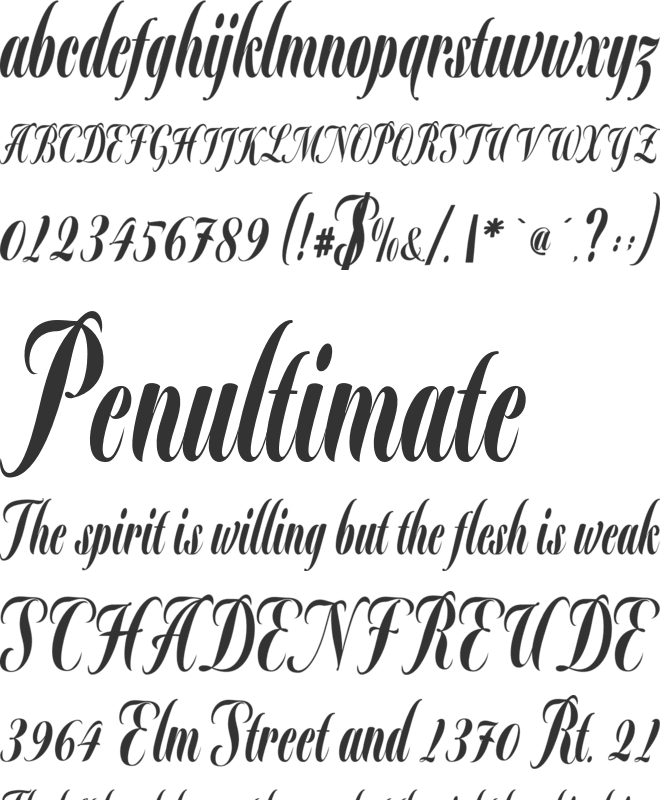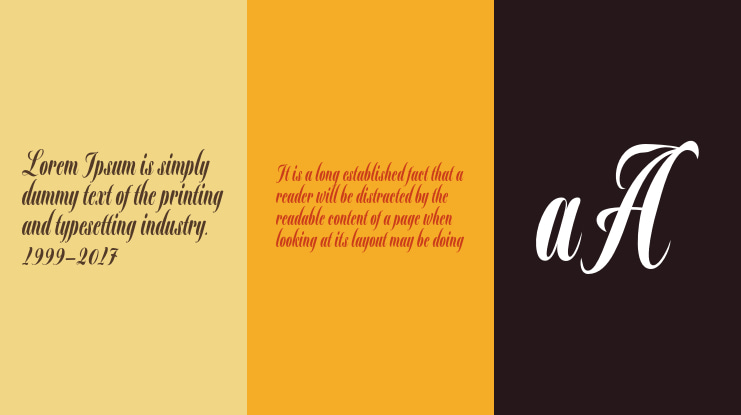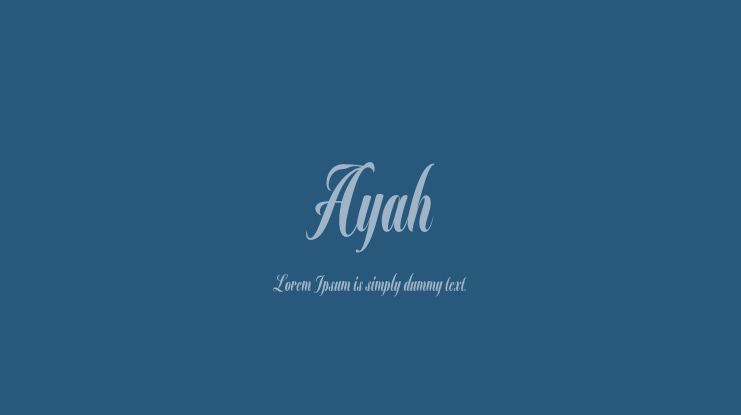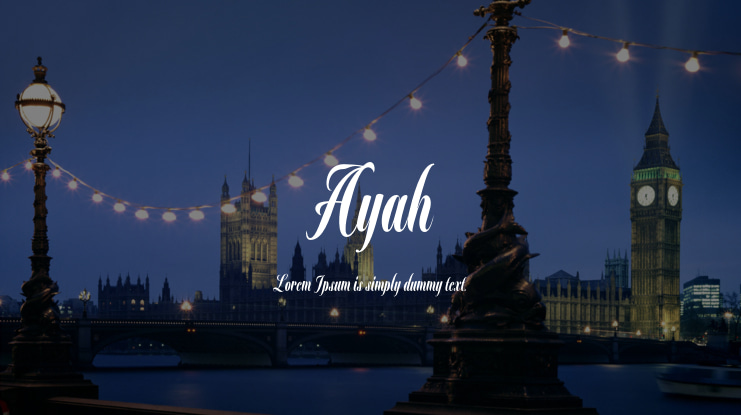
Ayah Font
Ayah is a beautiful and refined script font. It has a classy, elegant and modern look that can be used for a variety of formal and informal designs!